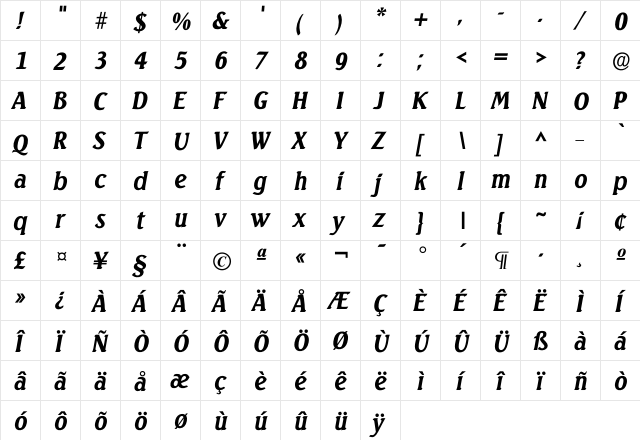
Iseagull Bold
Design Context for Iseagull Typeface
Iseagull offers clean, dependable letterforms without strong stylistic allegiance, making it a practical choice for designers who need flexibility. The heavy weight commands attention and anchors typographic hierarchies.
Pro Tip: Pair Iseagull with a font of contrasting weight or personality to build a more expressive typographic hierarchy.